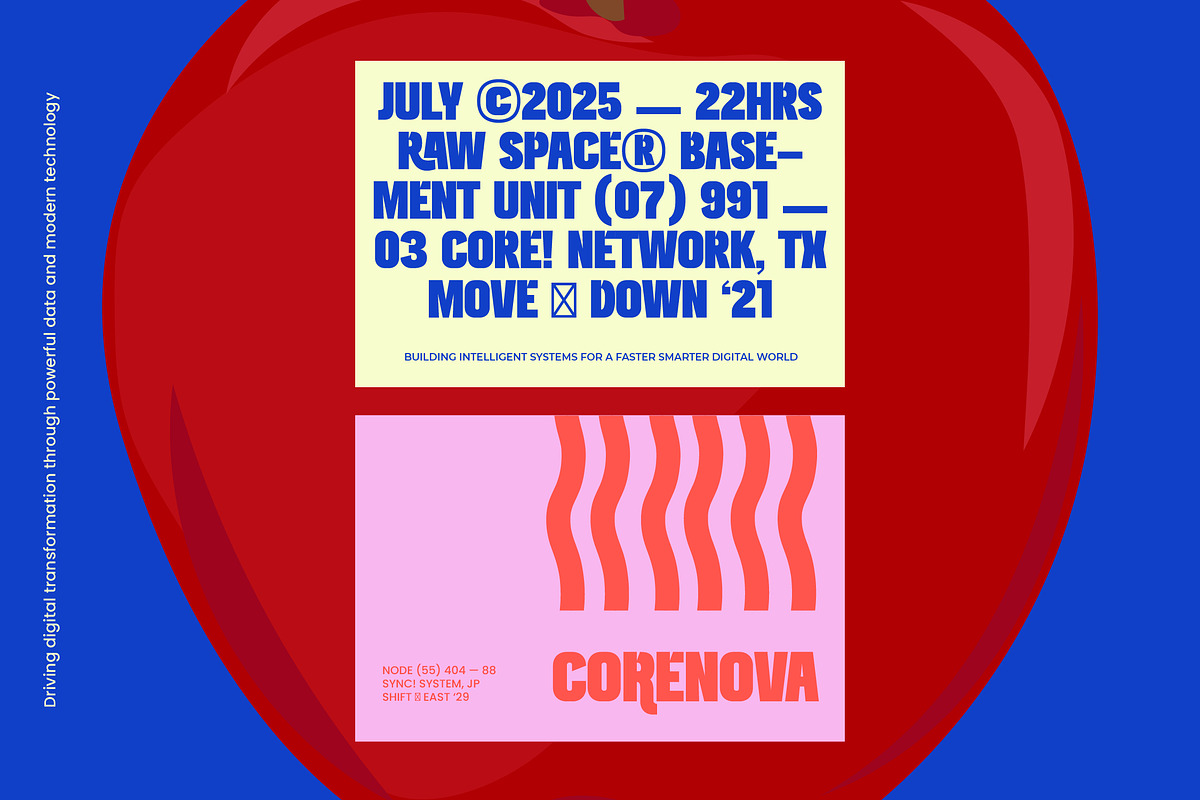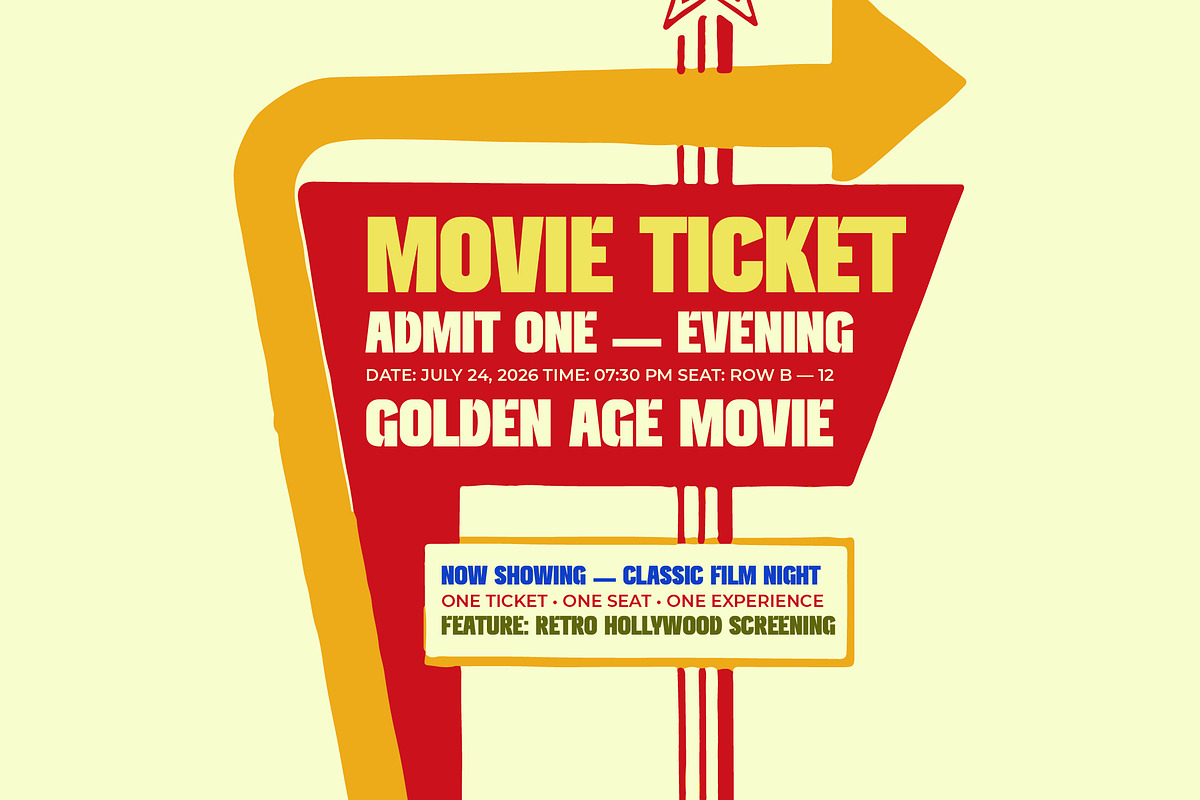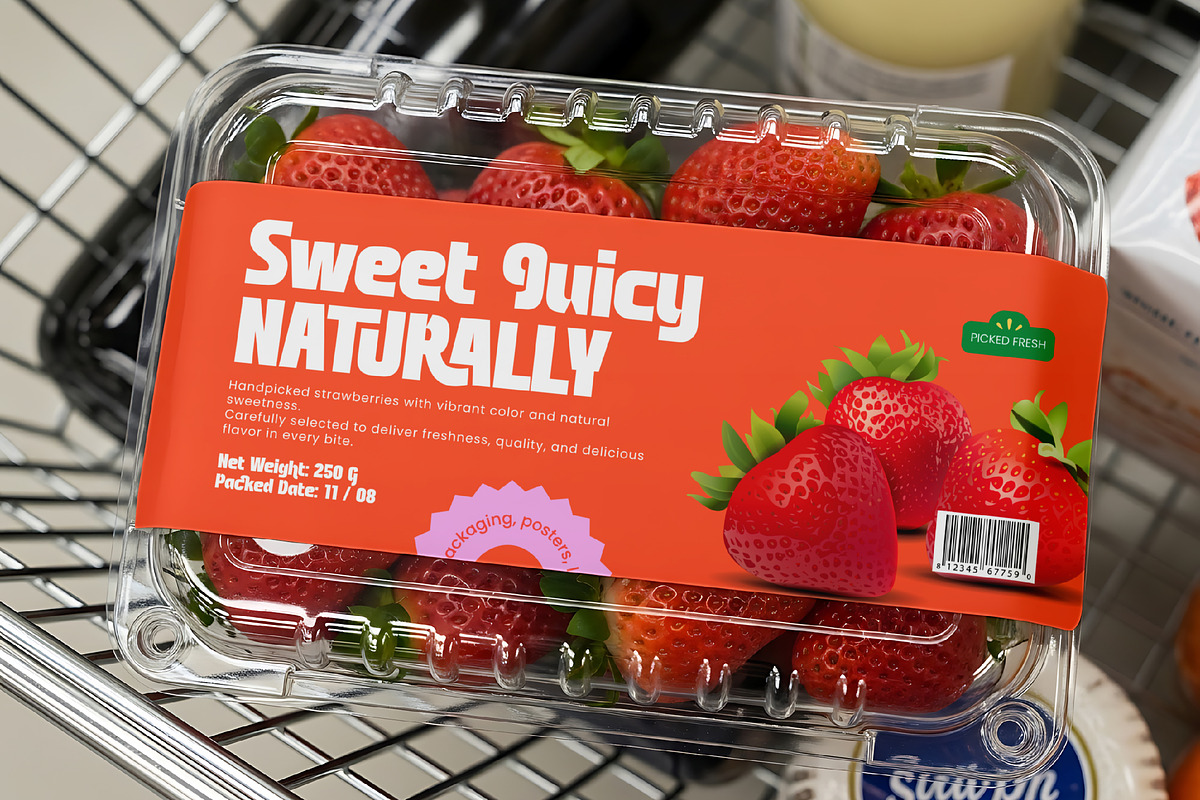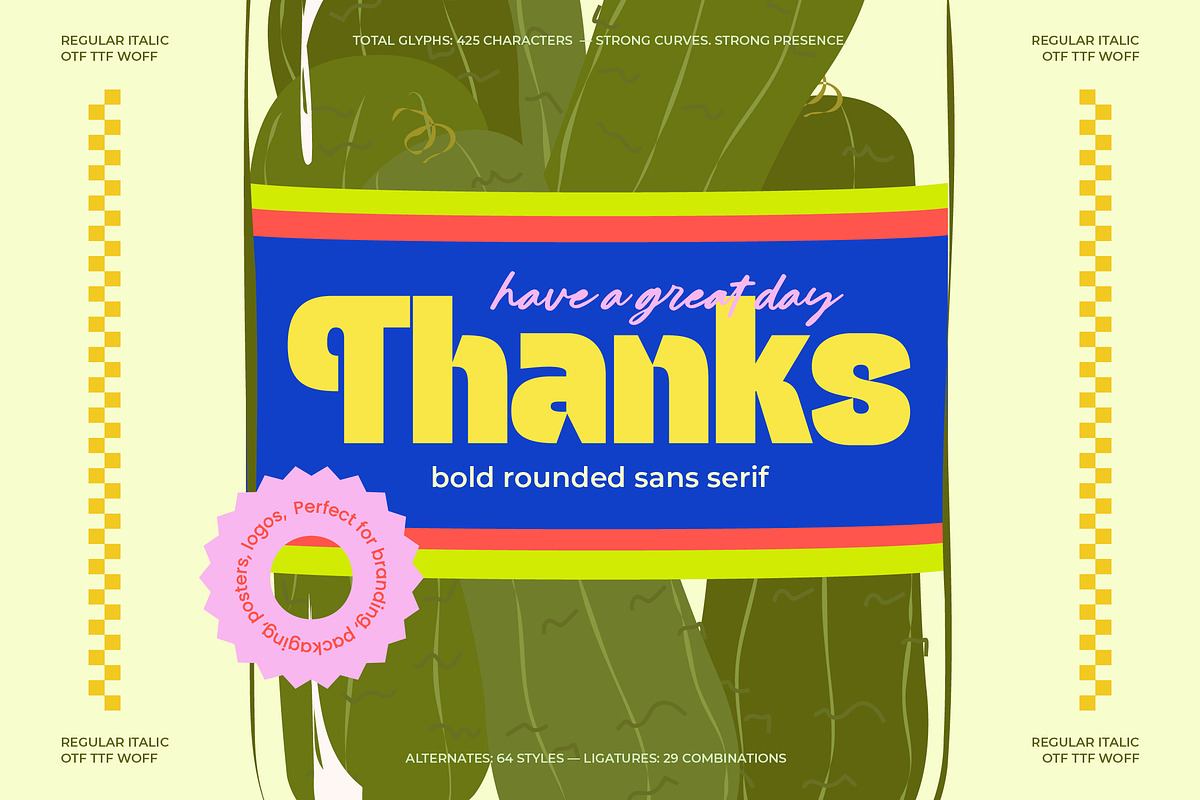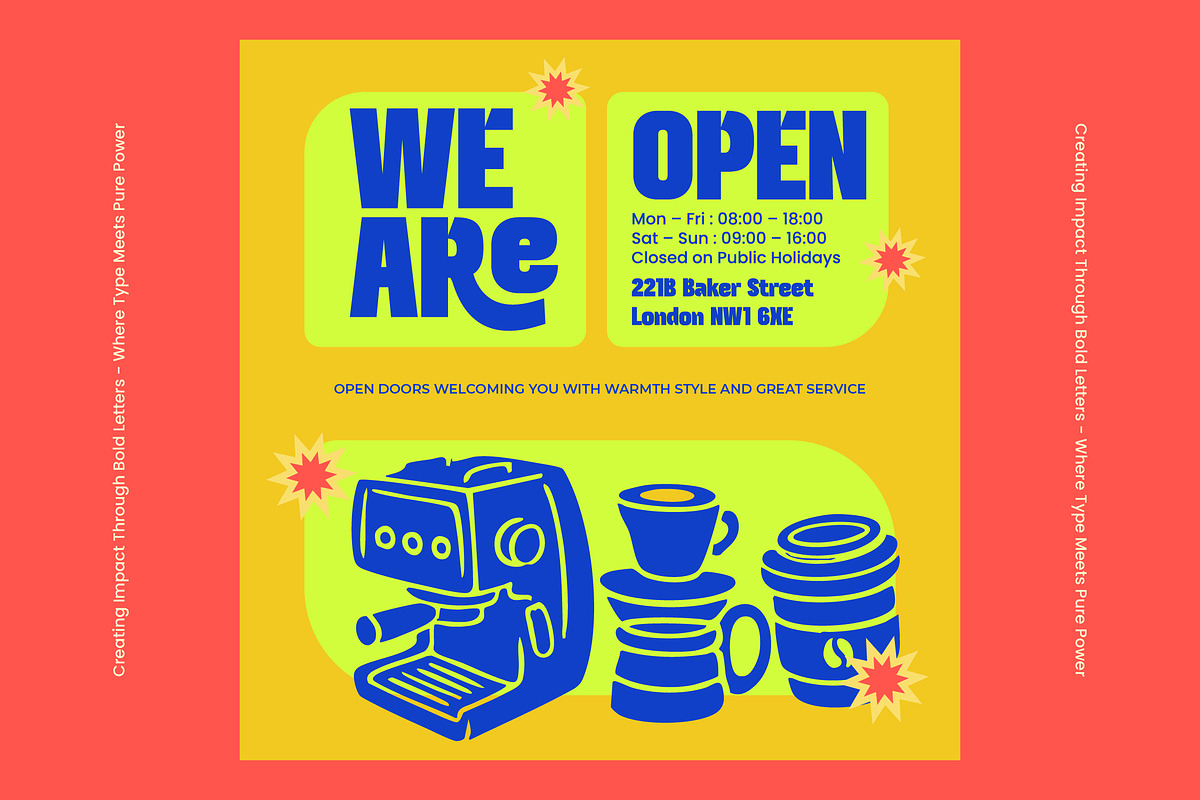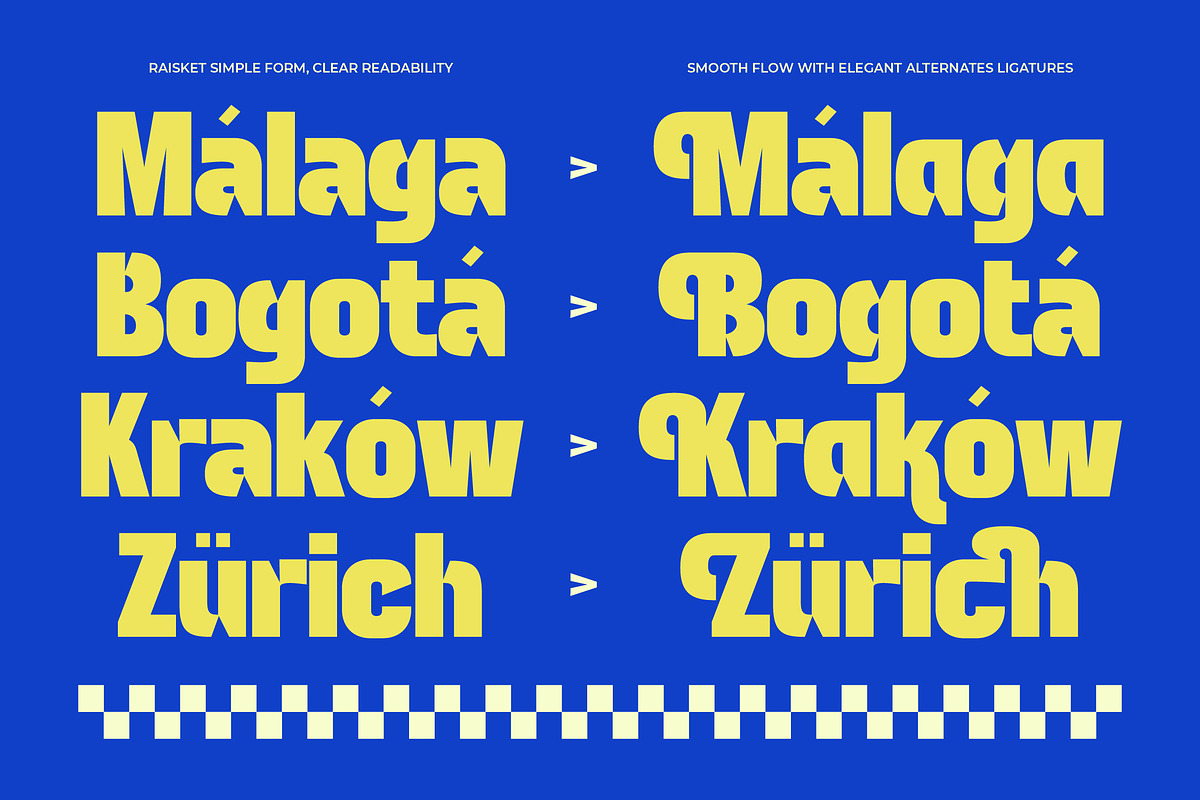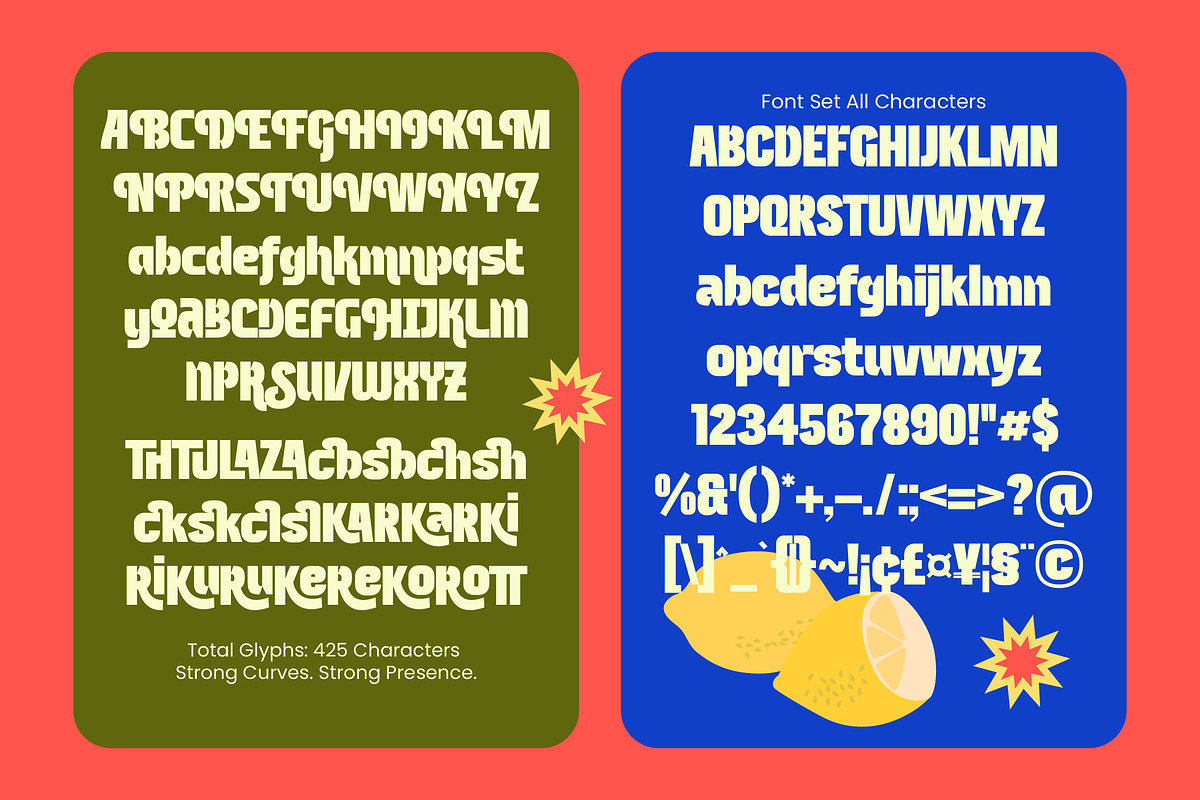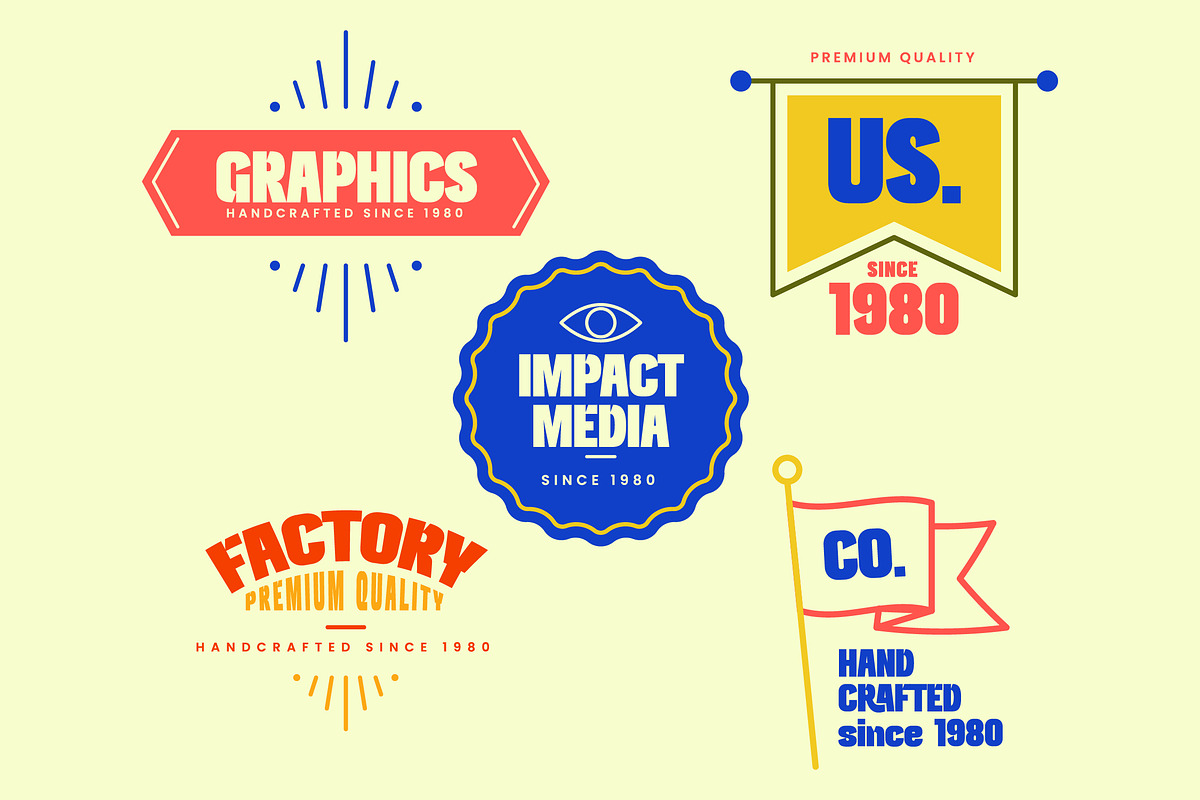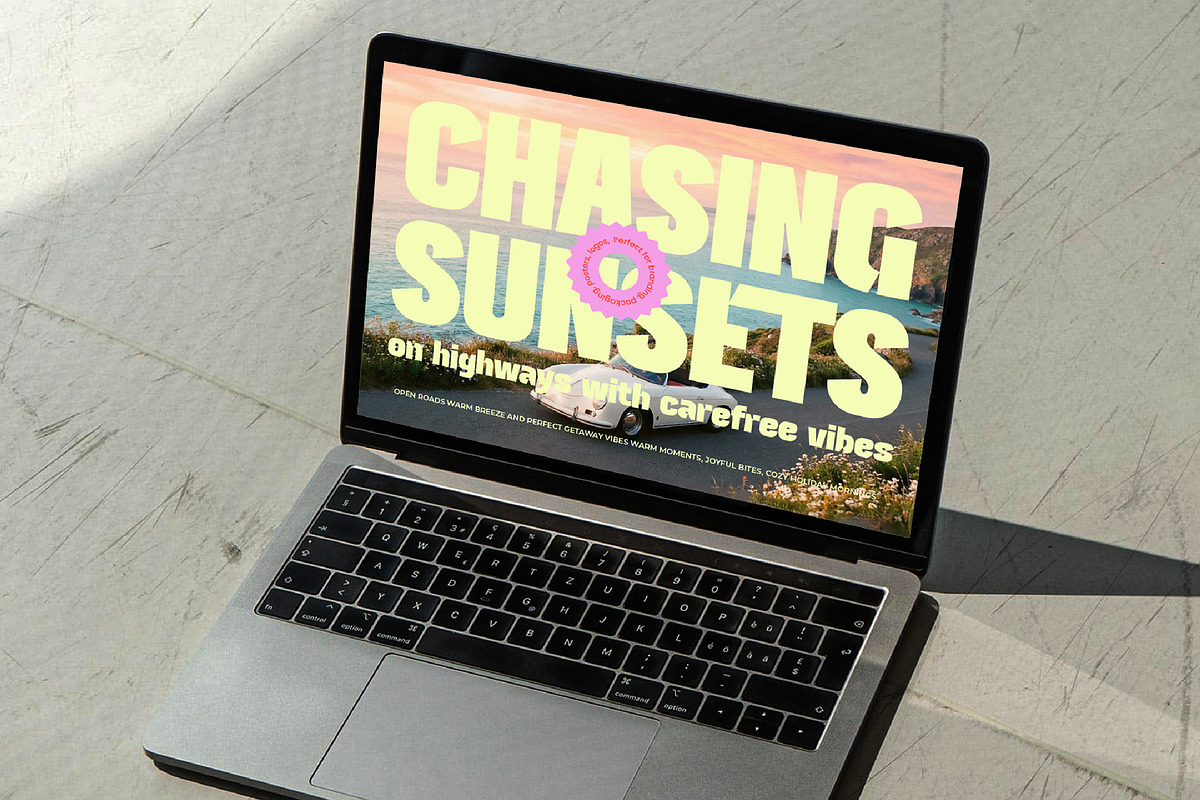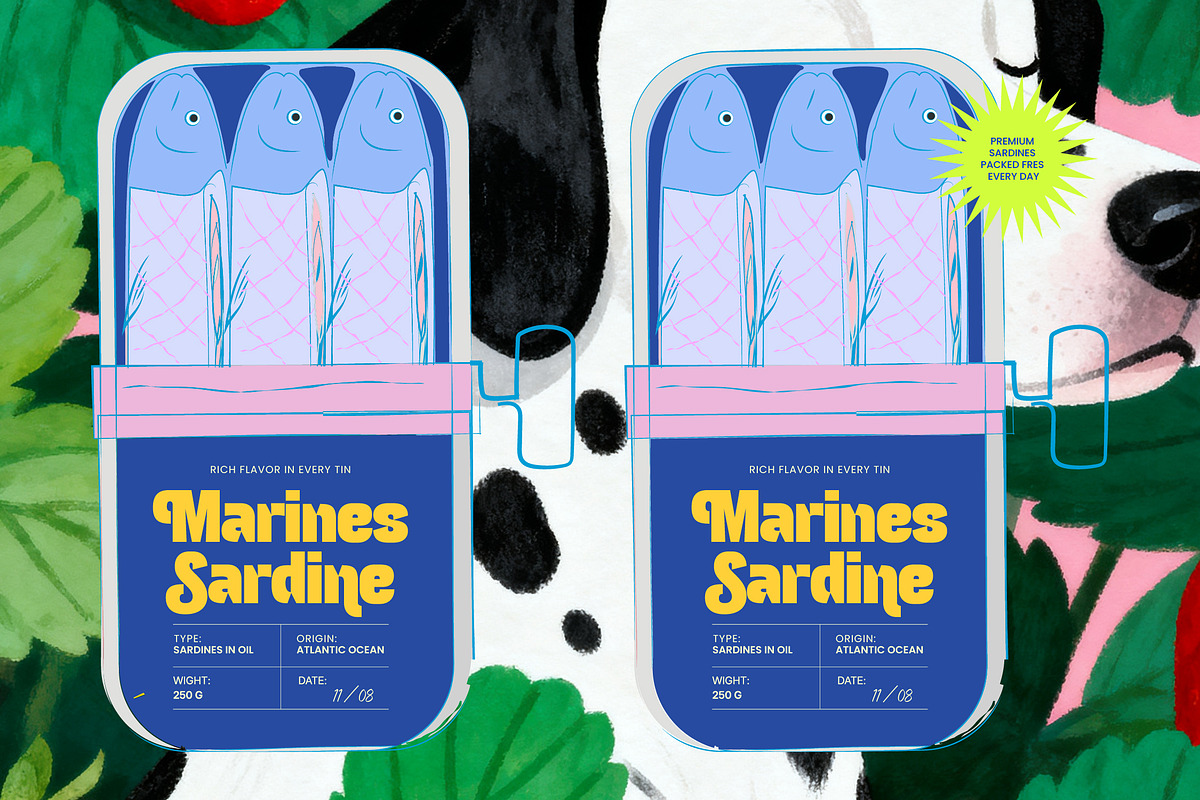
Raisket – Bold Rounded Sans Serif
Raisket – Bold Rounded Sans Serif , Elevate your design identity with a typeface that commands attention through its unique blend of approachability and strength. Raisket – Bold Rounded Sans Serif is a masterfully crafted typeface that balances soft, friendly curves with a powerful bold presence. This font is designed to provide high legibility and a contemporary aesthetic, ensuring your headlines and branding elements stand out with a modern, playful edge that resonates with diverse audiences.
Redefine your brand’s visual narrative through unparalleled versatility and striking visual impact. This typeface is the perfect choice for packaging, lifestyle branding, and editorial layouts that require a touch of personality without sacrificing professionalism. Whether you are crafting vibrant logo designs, bold posters, or creative social media assets, Raisket – Bold Rounded Sans Serif provides the essential typographic foundation needed to transform ordinary projects into extraordinary visual experiences.
Bridge the gap between local charm and international reach effortlessly with a font built for the modern era. With its extensive multilingual support, Raisket – Bold Rounded Sans Serif adapts seamlessly across global markets, making it incredibly versatile for international projects. Featuring over 425 glyphs, including unique ligatures and stylistic alternates, this font offers designers the creative flexibility required to maintain consistent brand messaging across multiple languages and regions.
Experience the perfect fusion of character and functionality by integrating this dynamic sans-serif into your professional toolkit. Raisket – Bold Rounded Sans Serif is engineered for high-visibility displays and digital interfaces, offering a premium typographic solution that remains timeless yet trendy. Investing in Raisket – Bold Rounded Sans Serif ensures your portfolio reflects a high-standard of design excellence, making it a must-have asset for any forward-thinking creative professional looking to make a lasting impression.
Numerals
Punctuations (OpenType Standard)
Accents (Multilingual Characters)
Ligatures and Alternative Style Stylistic Set